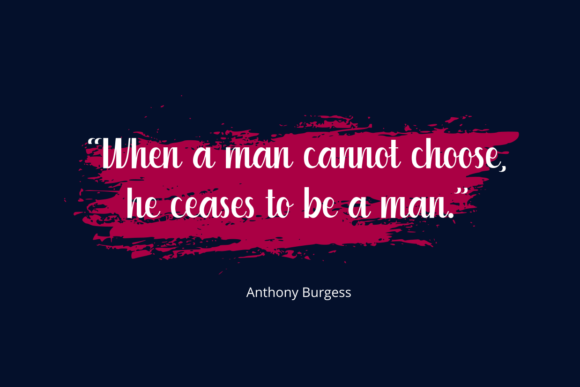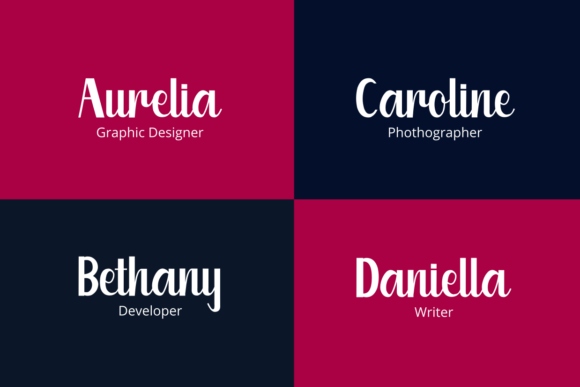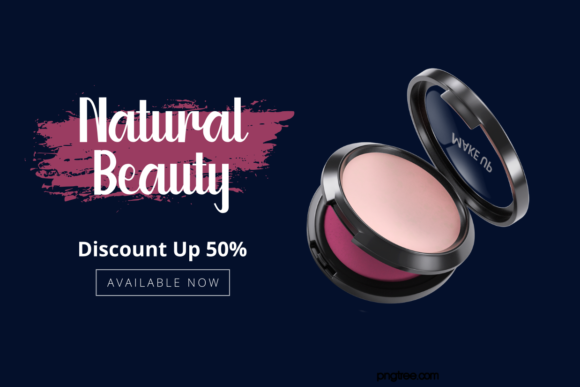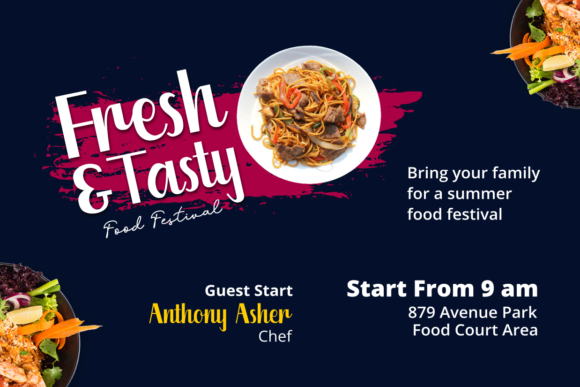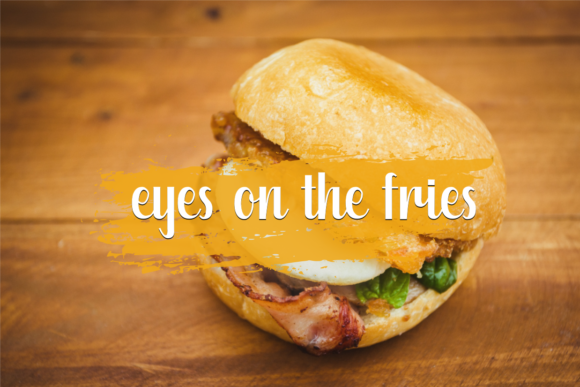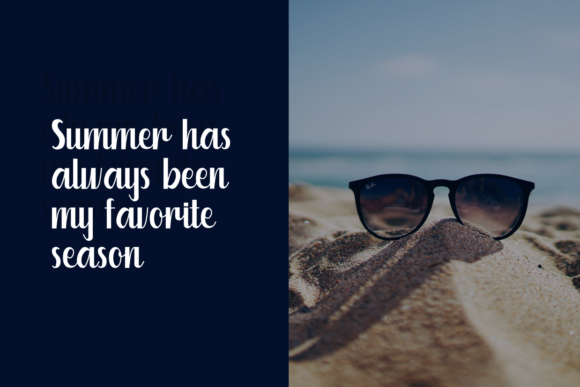
Introduction to Kuriland Font Font
Fonts play a crucial role in design, and the Kuriland Font font is a typeface that brings both character and versatility to any project. Whether you’re working on a branding project, a website, or a print design, the Kuriland Font font offers a unique style that can elevate your work.
Kuriland is a magical handwritten font carefully created with a touch of elegance.
This is a beautiful combination of timeless elegance and authentic calligraphy It features an incredibly classic style, while still keeping a friendly feel.
Key Features of Kuriland Font Font
Why Choose Kuriland Font Font?
The Kuriland Font font is more than just a typeface – it’s a design tool that helps you communicate your message with style and clarity. Its unique character set and versatile design make it suitable for a wide range of applications, from elegant invitations to bold headlines.
With its carefully crafted letterforms and balanced proportions, the Kuriland Font font ensures readability and visual appeal across all mediums.
What makes Kuriland Font font special?
The Kuriland Font font stands out with its unique design, exceptional readability, and versatility across various design applications.